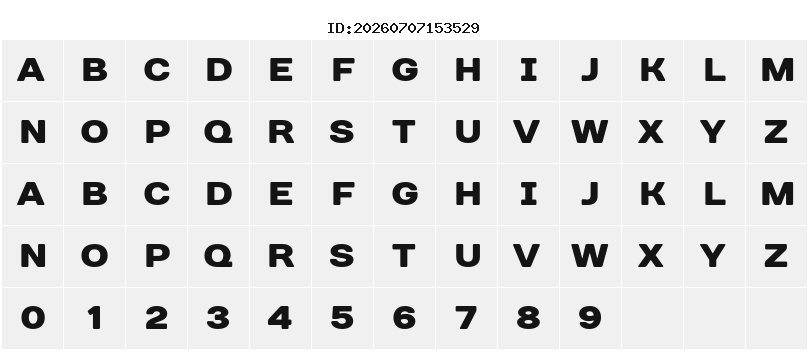
• Font Name: Days Sans Black
• Designer: Typetype
• Manufacturer: Typetype
• Description: Designed for Typetype in 2014 by Ivan Gladkikh. TT Days Sans is one of series of font families which were designed for use in web and mobile applications, print and multimedia environments.
About Days Sans Black.otf
Days Sans Black.otf is a modern, elegant sans-serif font designed for ultimate readability and visual harmony. Perfect for branding, headlines, web design, and print materials.